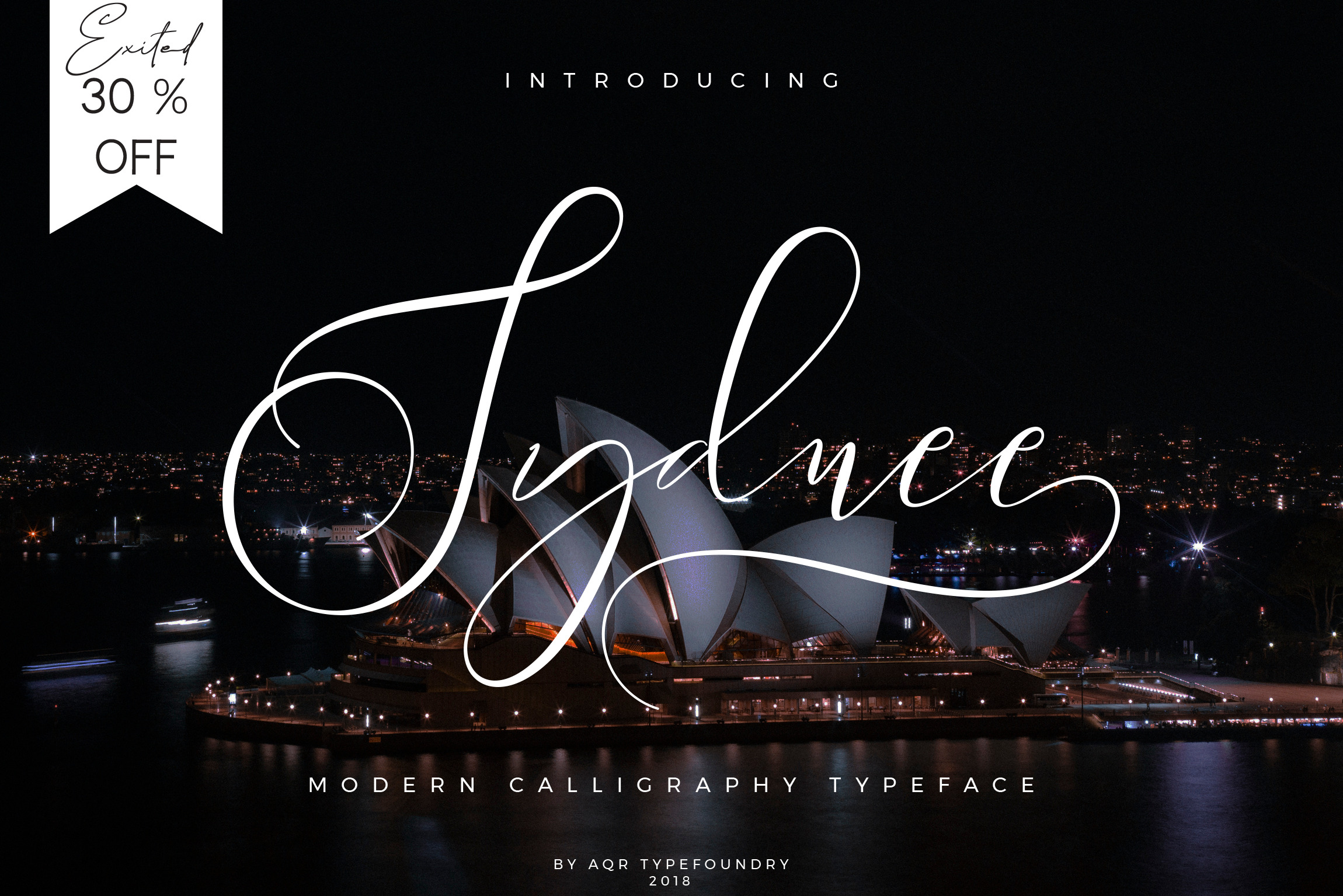
Sydnee Modern Calligraphy Font
Sydnee Script Fonts made with love, this font is very good for weddings, birthdays, cosmetic products, fashion, and other designs you want. Sydnee Script Fonts has more than 600 + + of glyph, and has 17 stylistic sets that make you very wide choice your design.
Sydnee Script Fonts features with :
- Basic Glyphs, Numerals, Symbol and punctuation
- Stylistic Sets 1 - 17